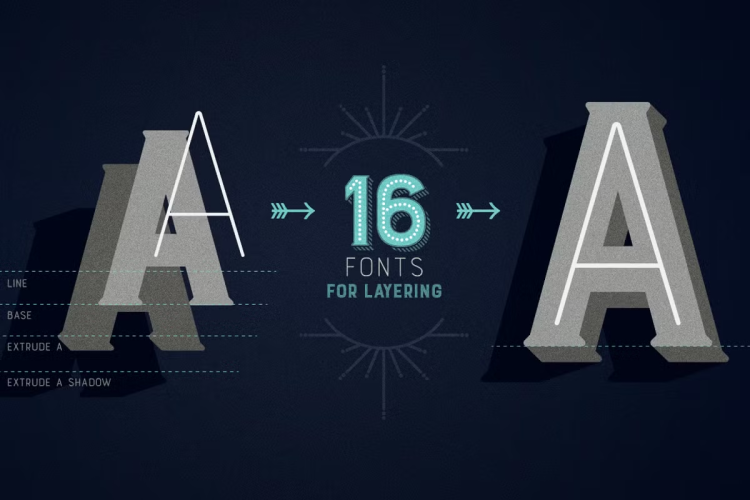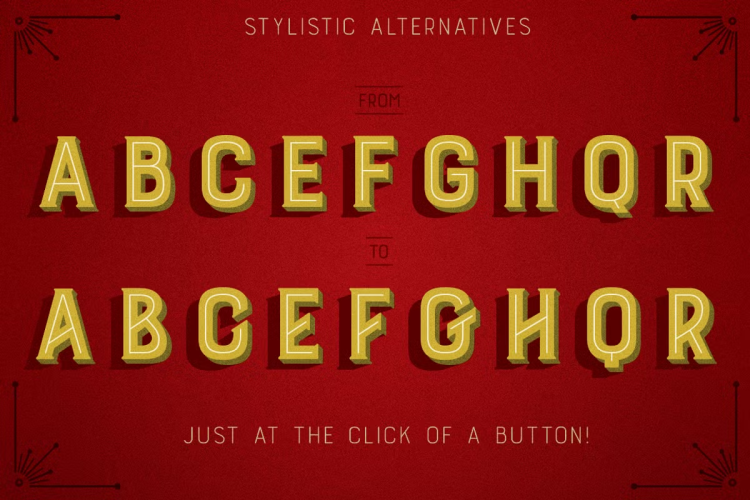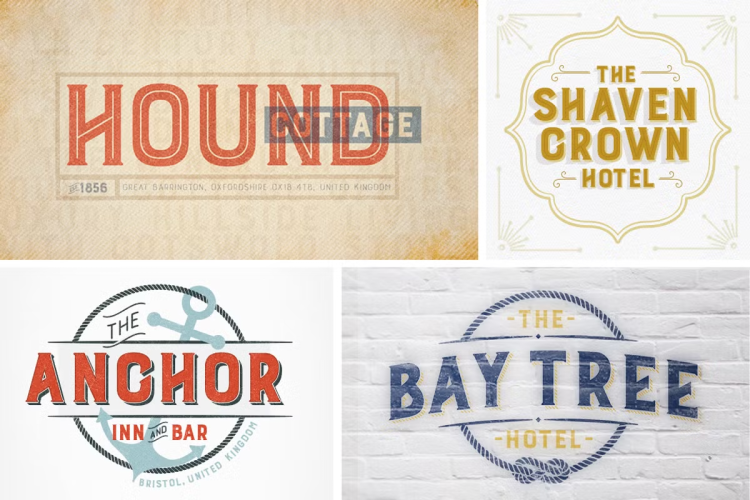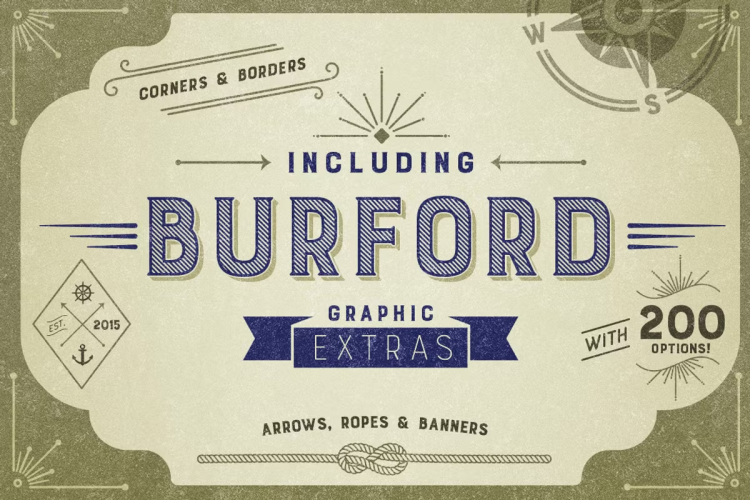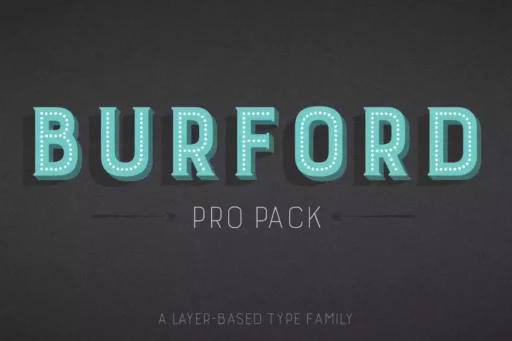
Burford Font
Burford is a layered base type font pack by Kimmy Design. During his trip to Amsterdam, he spent many hours in daily sketching characters of Burford. When he returned back to US he digitalized those sketches and transformed them into a beautiful layer based font and named it Burford Pro Pack.
The Burford Pro package is ideal for users of high-end design applications (Illustrator, InDesign, Photoshop, etc. ). This package contain all eighteen layering fonts, comprising five base layers, three top layers, five bottom layers and two sets of graphics. Kimmy Design designed these font to complement each other and work in harmony, thus forming a logical and easy-to-use layer-based family. Alphabets A, C, E, F, G, H, P, Q and R have Stylistic Alternatives that appear when the OpenType Panel (WINDOW – TYPE – OPENTYPE) is activated by pressing the ‘aa’ button. The Pro pack also includes webfonts.
The Burford Extras set comprises approximately 100 elements per set, covering all the fundamental keyboard characters. These elements have been created to be compatible with Burford’s diverse styles and consist of banners, borders, corners, arrows, line breaks, catchwords, anchors etc.
Burford is highly multilingual, supporting alphabets for Cyrillic, Catalan, Cornish, Croatian, Czech, Danish, Dutch, Estonian, Filipino, Finnish, French, German, Greek, Hungarian, Icelandic, Indonesian, Irish, Italian, Macedonian, Polish, Portuguese, Romanian, Russian, Serbian, Slovak, Spanish, Swedish, Turkish, and many more!
Where Burford Font works best
Burford Font is built for size: event posters, hero headlines and billboard-style layouts.
High contrast display type like Burford Font reads instantly in thumbnails and motion graphics.
What is Burford Font good for?